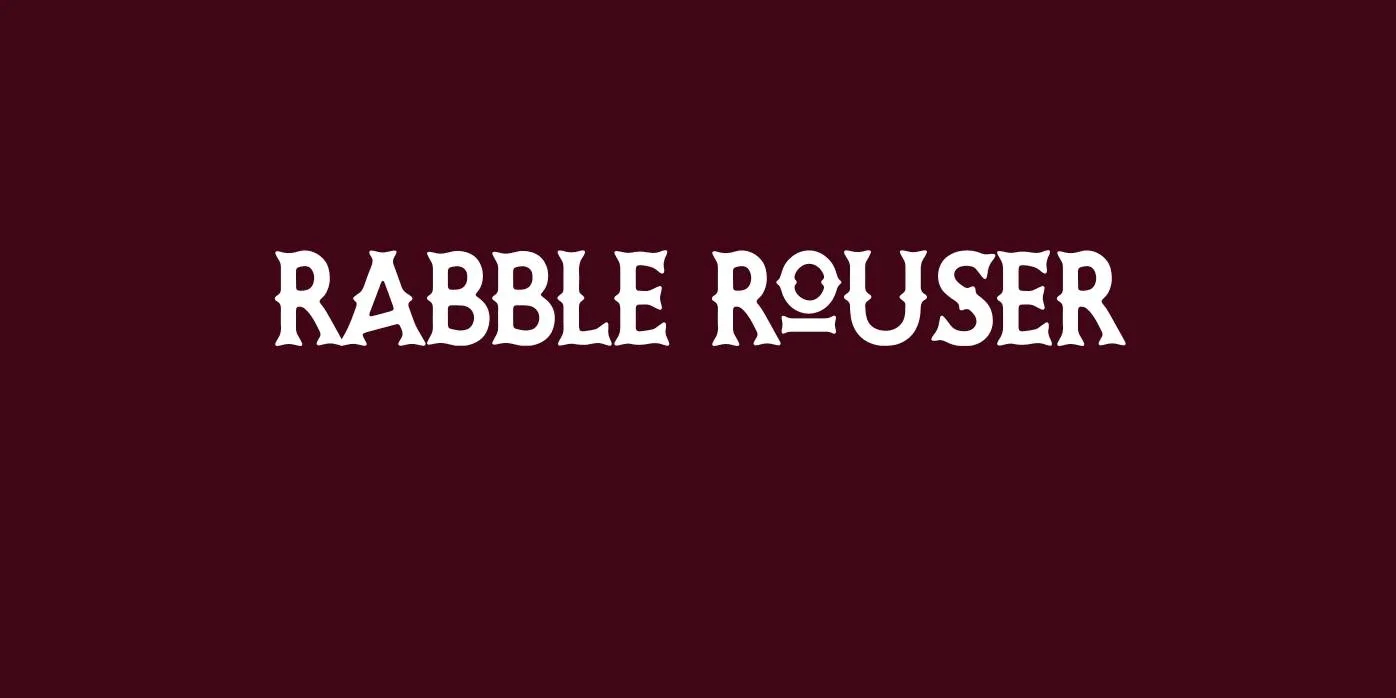
Rabble Rouser Font
Rabble Rouser Font is a fancy type of font. Michael Hassler is the developer of this typeface. He is a famous graphic designer. The characters of this typeface are stylish, classic, and highly readable. There are 90 unique glyphs for this typeface.